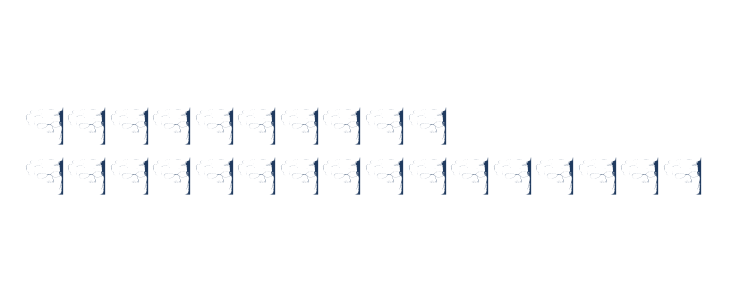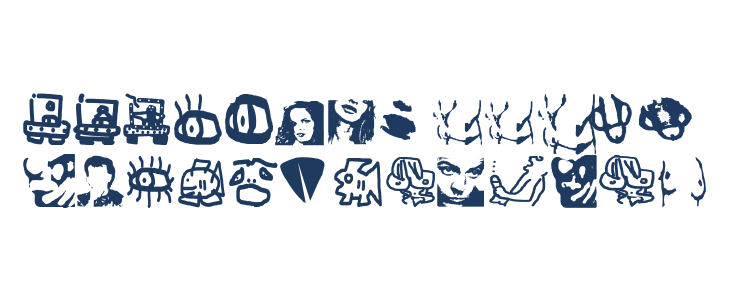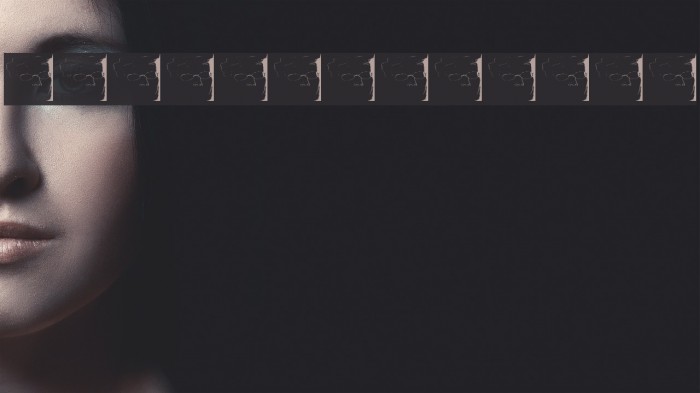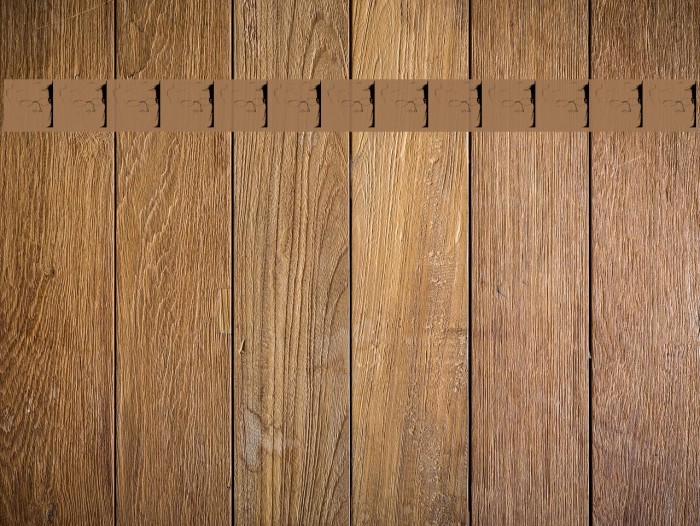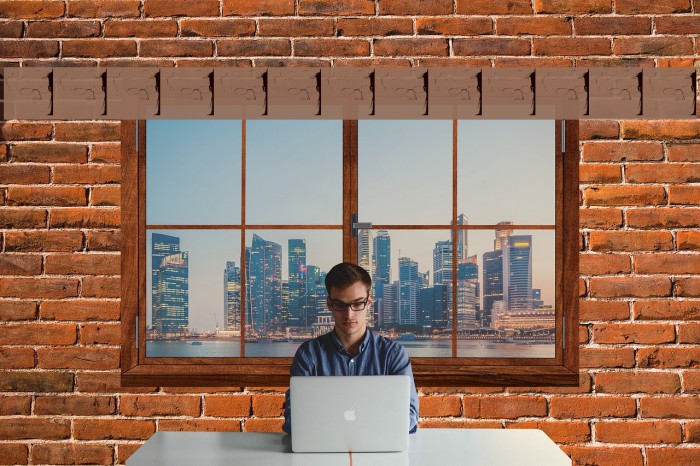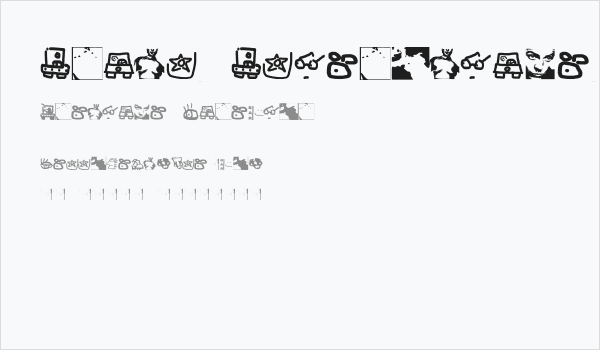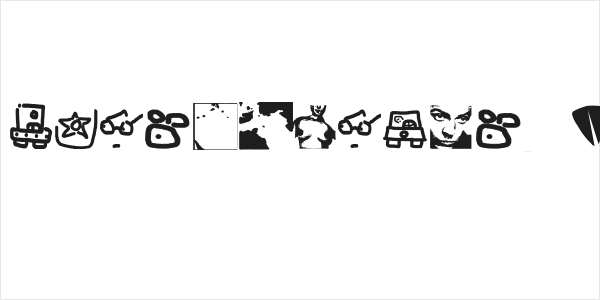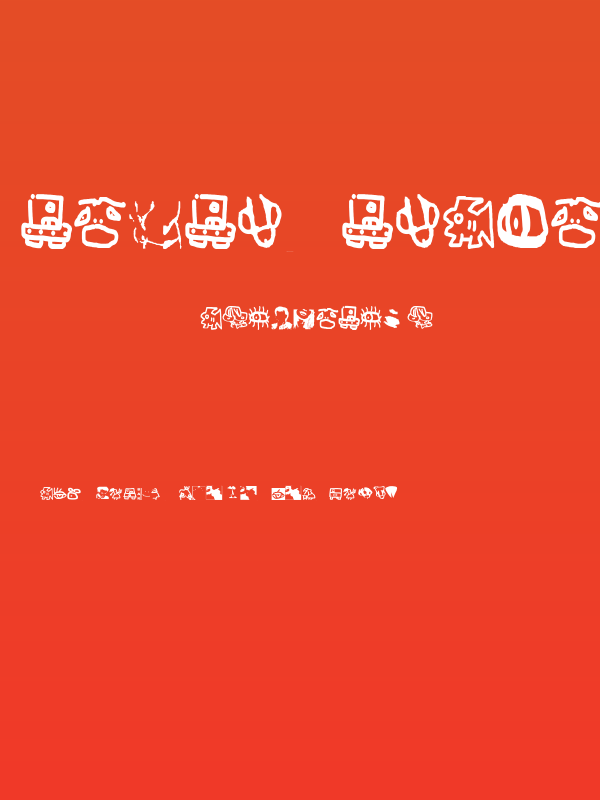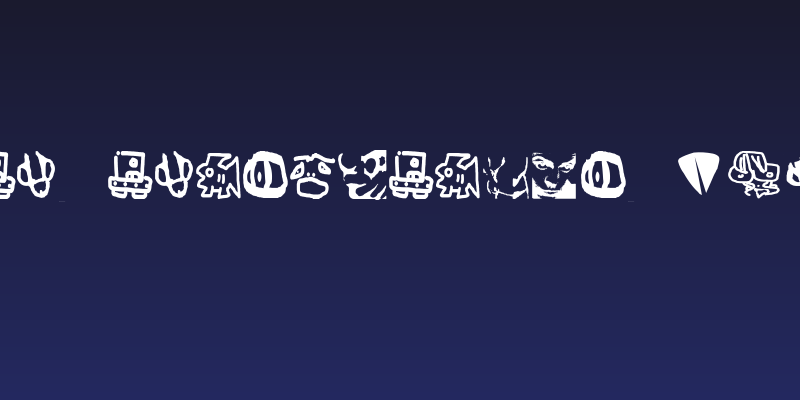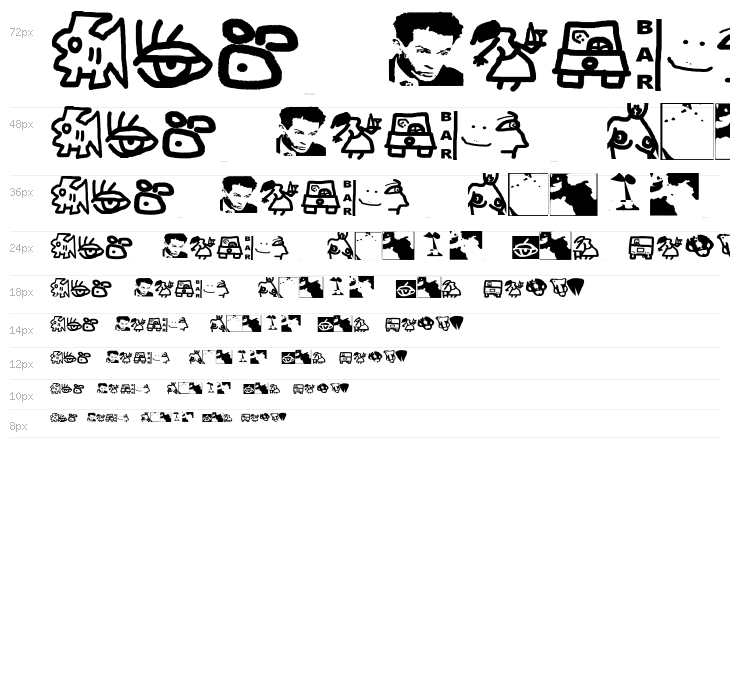
Arial Alternative Symbol Font
Arial Alternative Symbol Description
This font is a highly decorative and artistic typeface, characterized by its intricate and elaborate design. Each character is crafted with a unique flourish, giving it a whimsical and ornate appearance. The strokes are varied, with some parts being thin and delicate, while others are bold and pronounced, creating a dynamic visual contrast. This font is not suitable for body text due to its complexity but can be effectively used for artistic and decorative purposes. Its unique style makes it ideal for projects that require a touch of elegance and creativity.
| Use Case | Logos, Decorative headings, Artistic projects |
| Proposed Projects | Ideal for invitations, artistic posters, branding for luxury products, and decorative headings. |